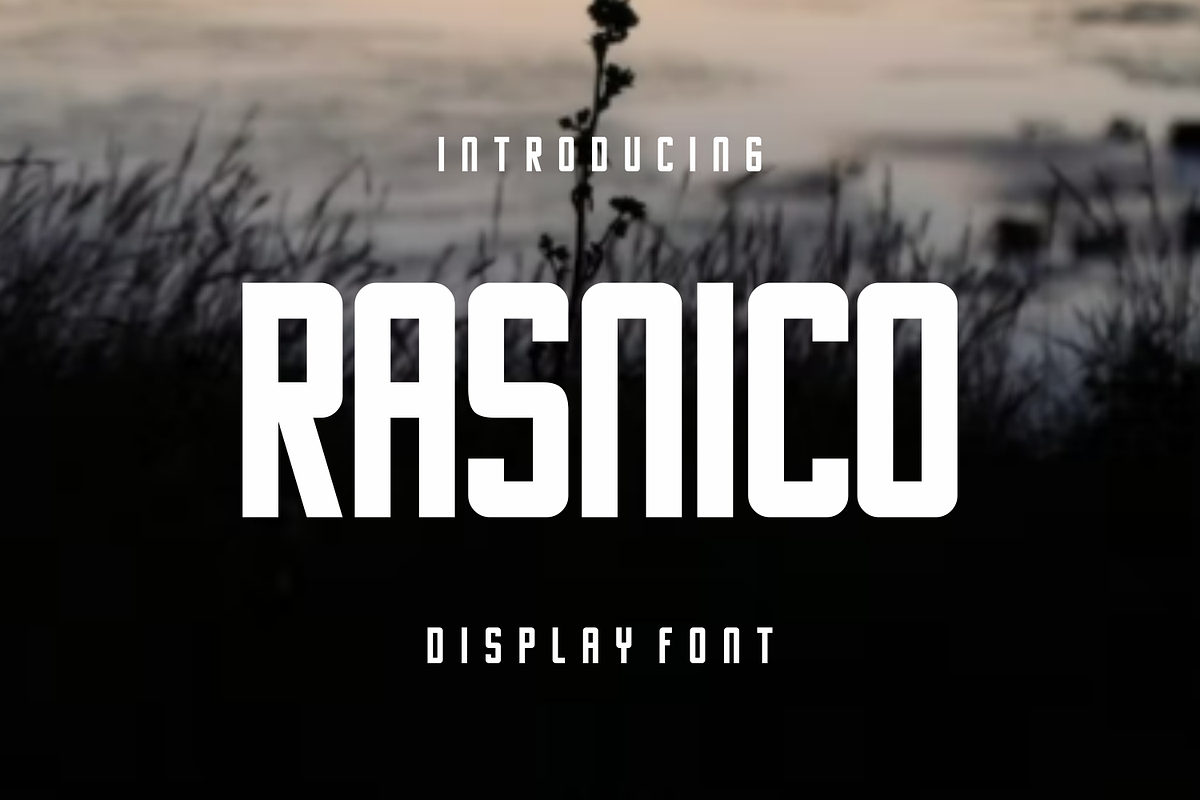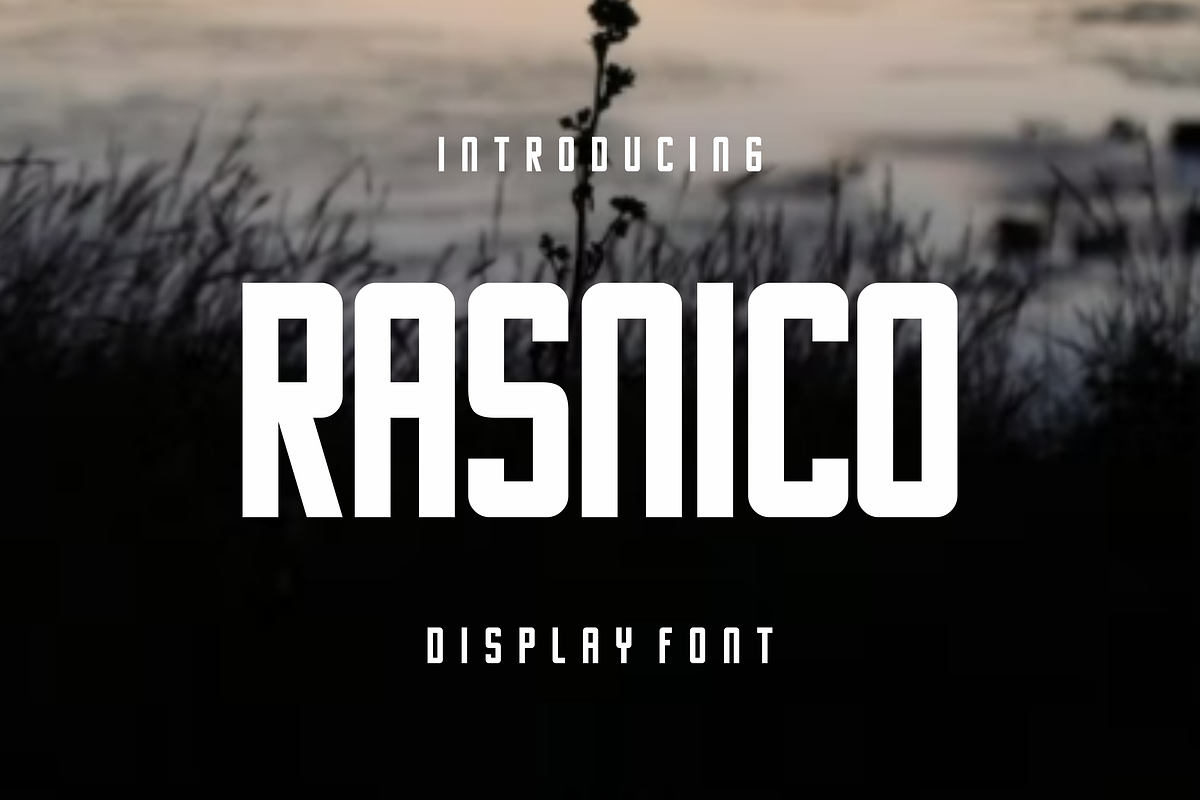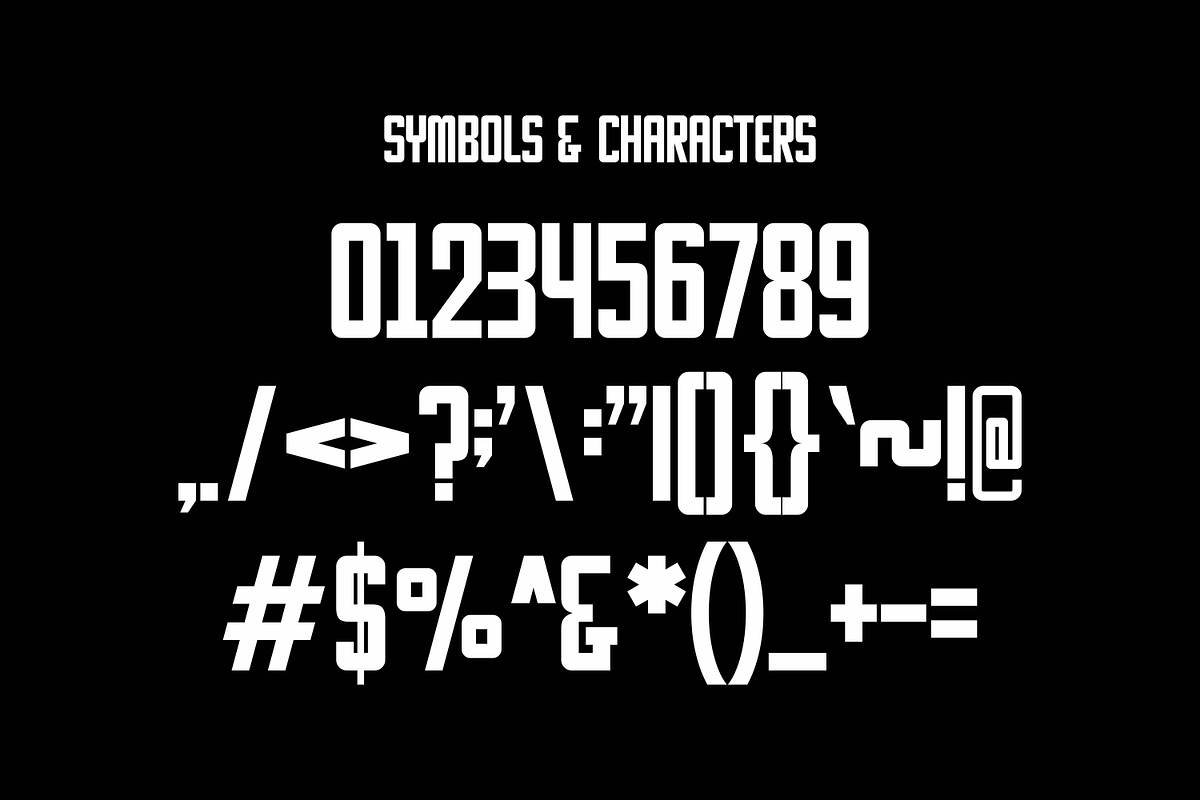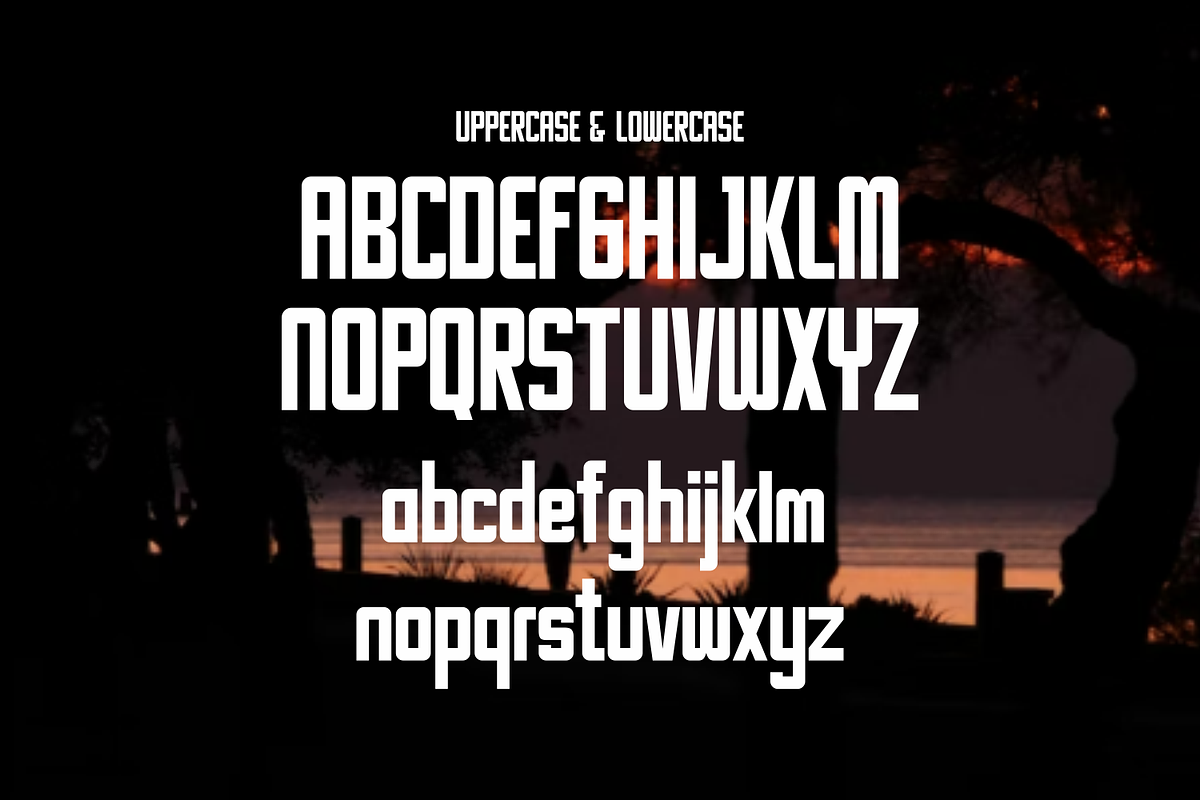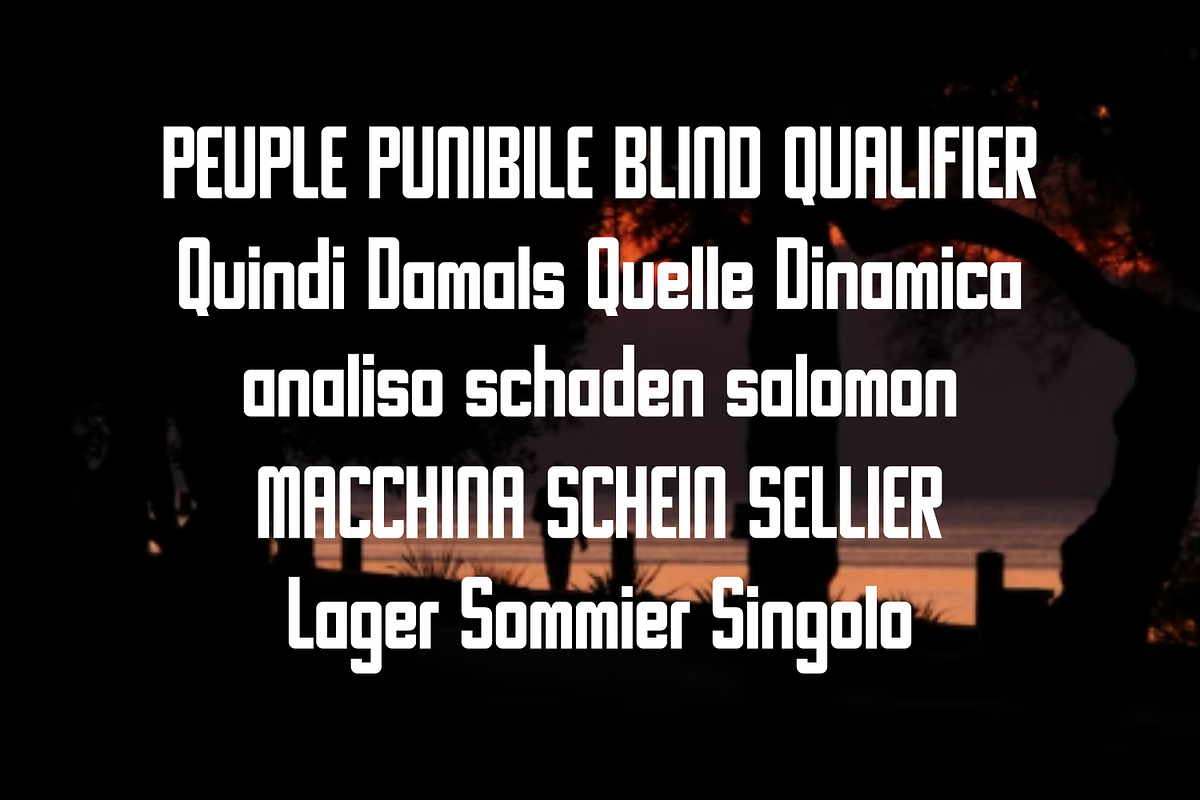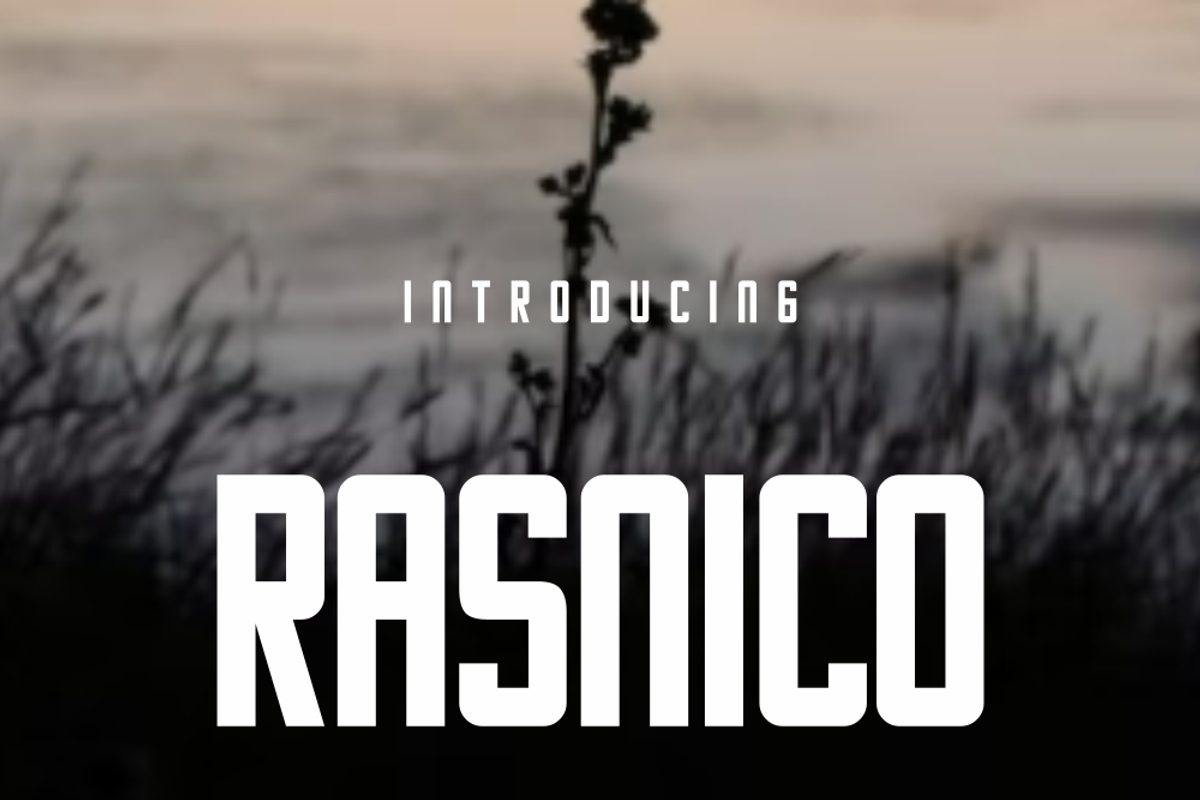
Rasnico
Rasnico Perfectly suited on print/screen. it’s perfect for Branding, name card, poster, logo, magazine, cover, banner, t-shirt and headers, or even large-scale artwork.